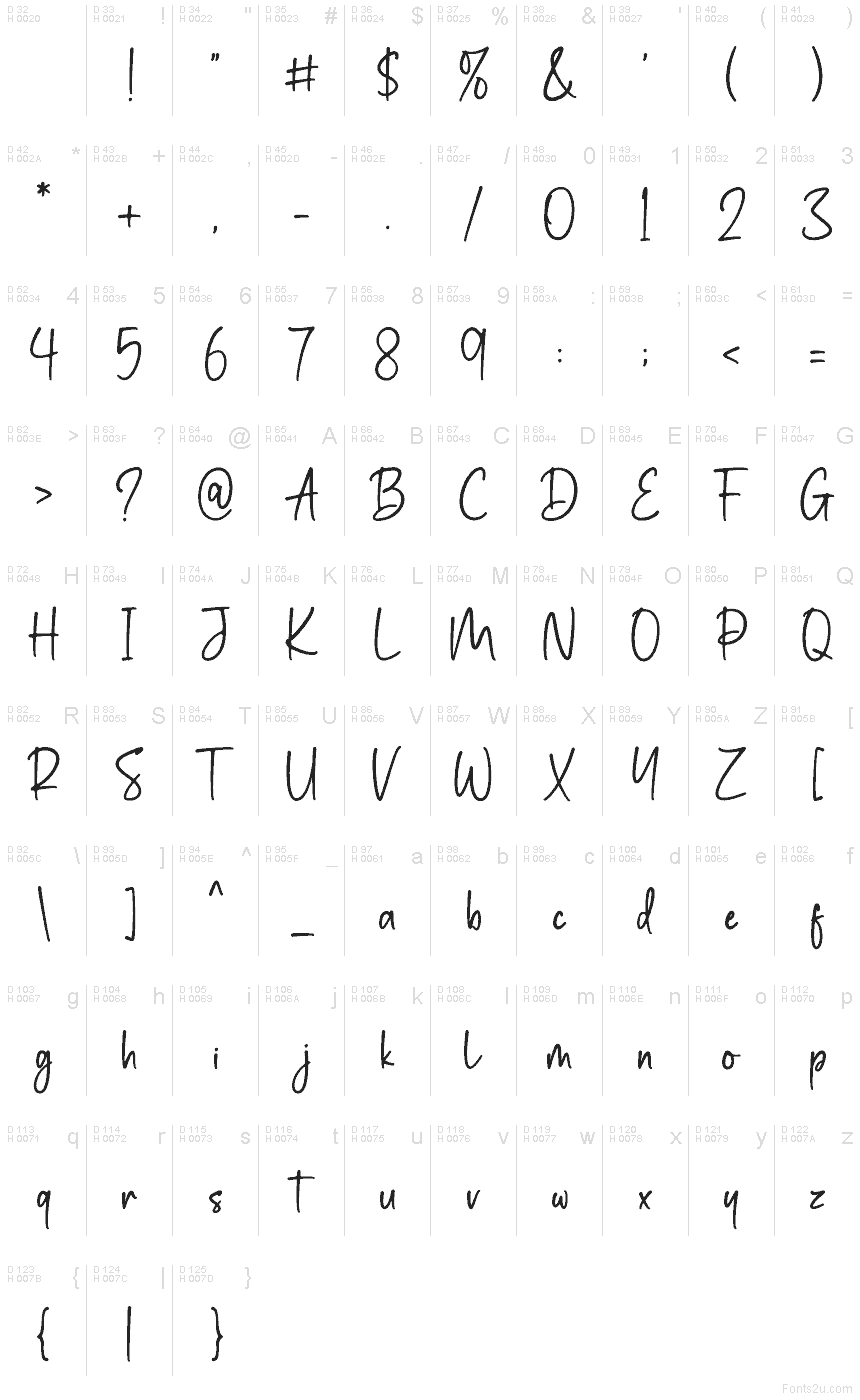
Alensia
Alensia font is a modern handwritten font with a smooth flow that appears both casual and expressive. RantautypeStudio designed it with beautiful letter strokes and connections artistically similar to calligraphy typefaces. Clarity, elegance, and style are other visual features this set possesses as well.